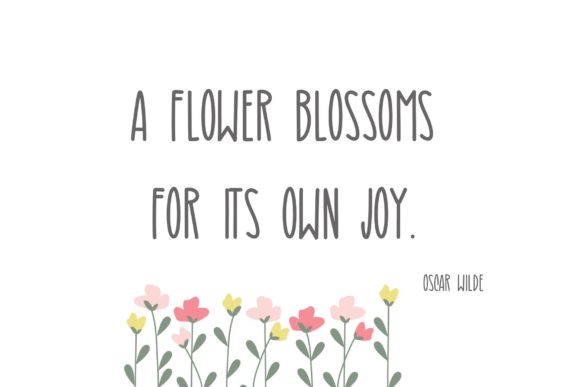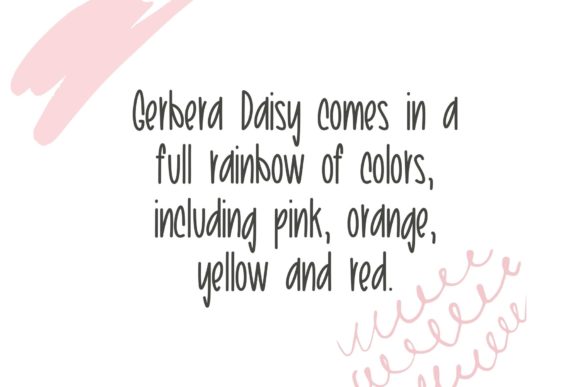
Morning Gerbera Daisy Font
db-ku.com - Script & Handwritten -- Morning Gerbera Daisy is a tall and thin handwritten font. Fall in love with its incredibly versatile style and use it to create spectacular designs!